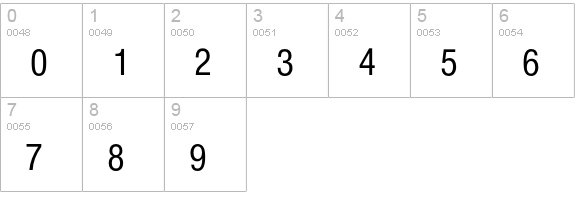
Nimbus Sans T Regular Condensed is the standard, neutral, condensed-width variant in the Nimbus typeface family \xE2\x80\x94 well suited to general body text, paragraphs, and standard typographic work.
Nimbus Sans T Regular Condensed is a modern and versatile typeface that exudes a sleek and sophisticated aesthetic. With its clean lines and balanced proportions, this font is perfect for conveying a sense of professionalism and clarity in any design project. The condensed design of Nimbus Sans T Regular allows for efficient use of space, making it ideal for headlines, titles, and other display purposes. What sets Nimbus Sans T Regular Condensed apart is not only its timeless appeal but also the fact that it is available for free download at FontsMarket.com. This means that designers and creatives can easily access this high-quality font without any cost, making it a valuable addition to any font library. Whether you're working on a branding project, editorial design, or web graphics, Nimbus Sans T Regular Condensed offers the versatility and reliability you need to bring your vision to life.